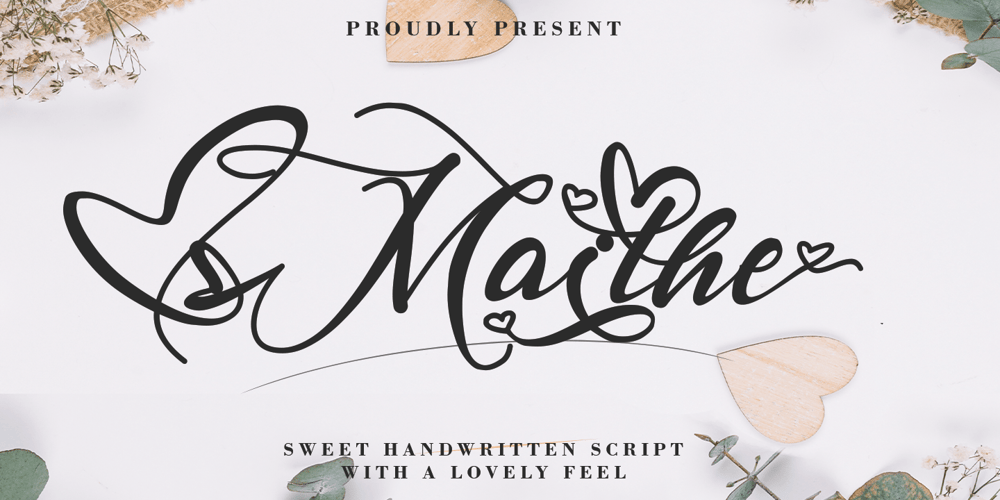
Maithe Font Family was designed by Thomas Aradea and published by Letterara. Maithe contains 3 styles and family package options. Maithe is an incredibly sweet and delicious handwritten script with a lovely feel. Whether it’s Valentine’s Day or Christmas, this the ultimate font for turning any romantic crafts idea into a stunning piece of art! Maithe works both on Mac & PC and it simple to install. This family contains Swashes , Titling, and Ligatures. Multilingual Support (ä ö ü Ä Ö Ü ß ¿ ¡). Accessible in the Adobe Illustrator, Adobe Photoshop, Adobe InDesign, CorelDraw, even work on Microsoft Word. To access the alternate glyphs, you need a program that supports OpenType features such as Adobe Illustrator CS, Adobe Photoshop CC, Adobe Indesign, and CorelDraw. More information about how to access alternate glyphs, check out this link (http://goo.gl/ZT7PqK) To stay up to date for my latest releases, follow me and let’s be friends because there will be many promos.